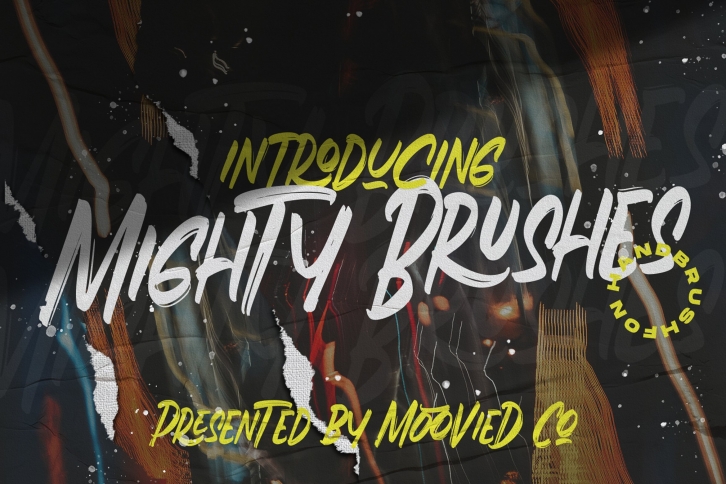
Mighty Brushes is a trendy and unique font with an authentic style. It was designed by Moovied Co and it's a great choice for creative people who need such a font. It was released on July 5, 2020 and the file size is 6.13 MB. Mighty Brushes will add an organic vibe to any design idea!